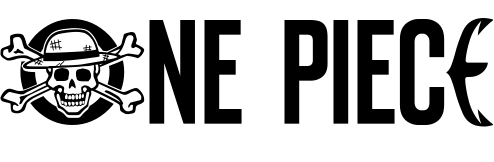
One Piece Font
AdventureOne Piece is a Japanese manga and anime by Eiichiro Oda, chronicling Monkey D. Luffy's quest for the legendary treasure to become the Pirate King.
One Piece's logo was custom made but has been replicated as One Piece Font designed by Phantom King Graphics. In addition to uppercase letters and lowercase letters, the font contains numerals and many punctuation marks. Another great alternative is Sayyeda Font by FG Studios.